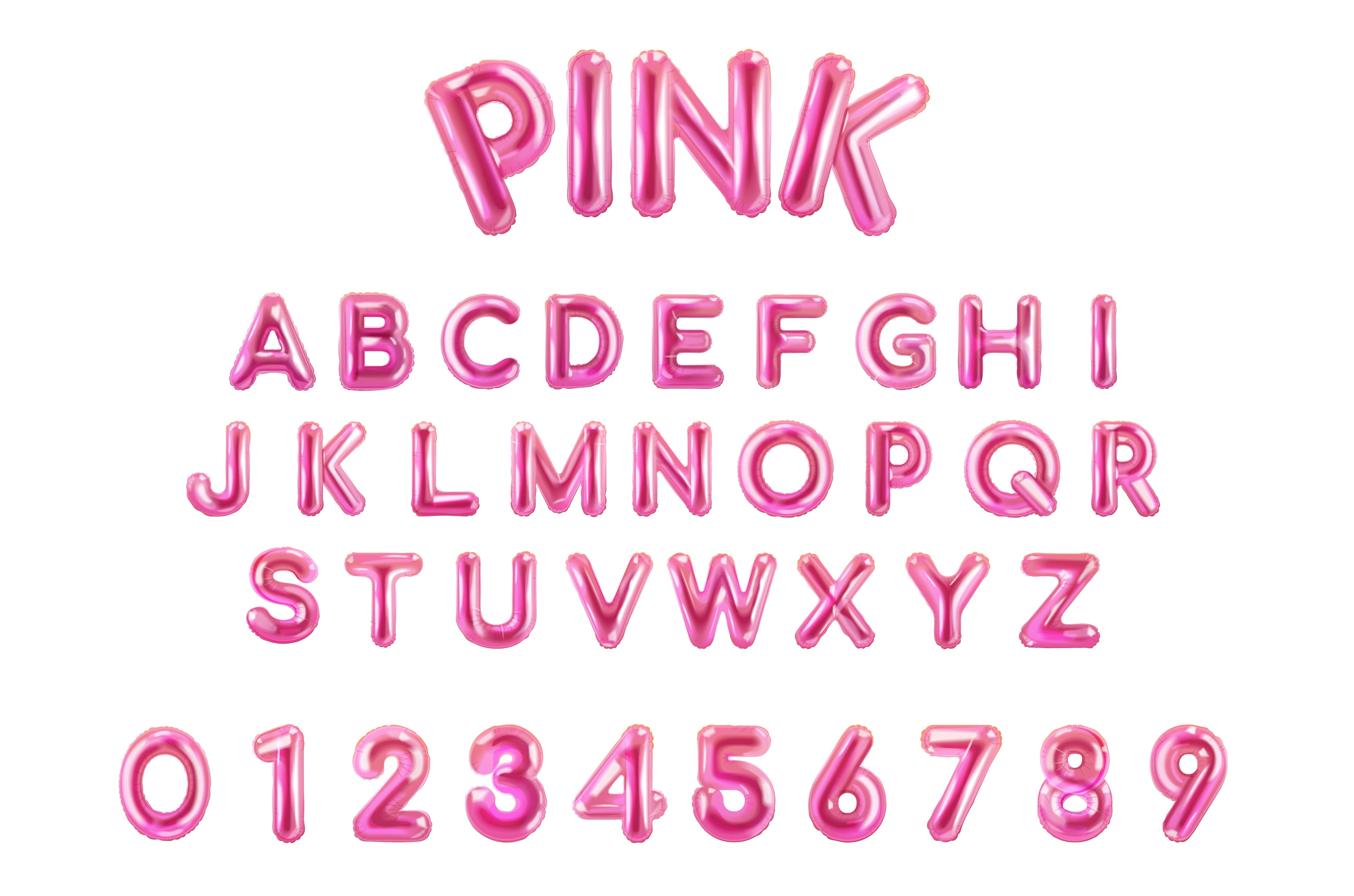
Pink balloon font. 3d bubble gum
Pink balloon font. 3d bubble gum alphabet, cute glossy effect realistic inflated letters girl baby shower birthday party kid text y2k design, isolated exact vector illustration original artwork